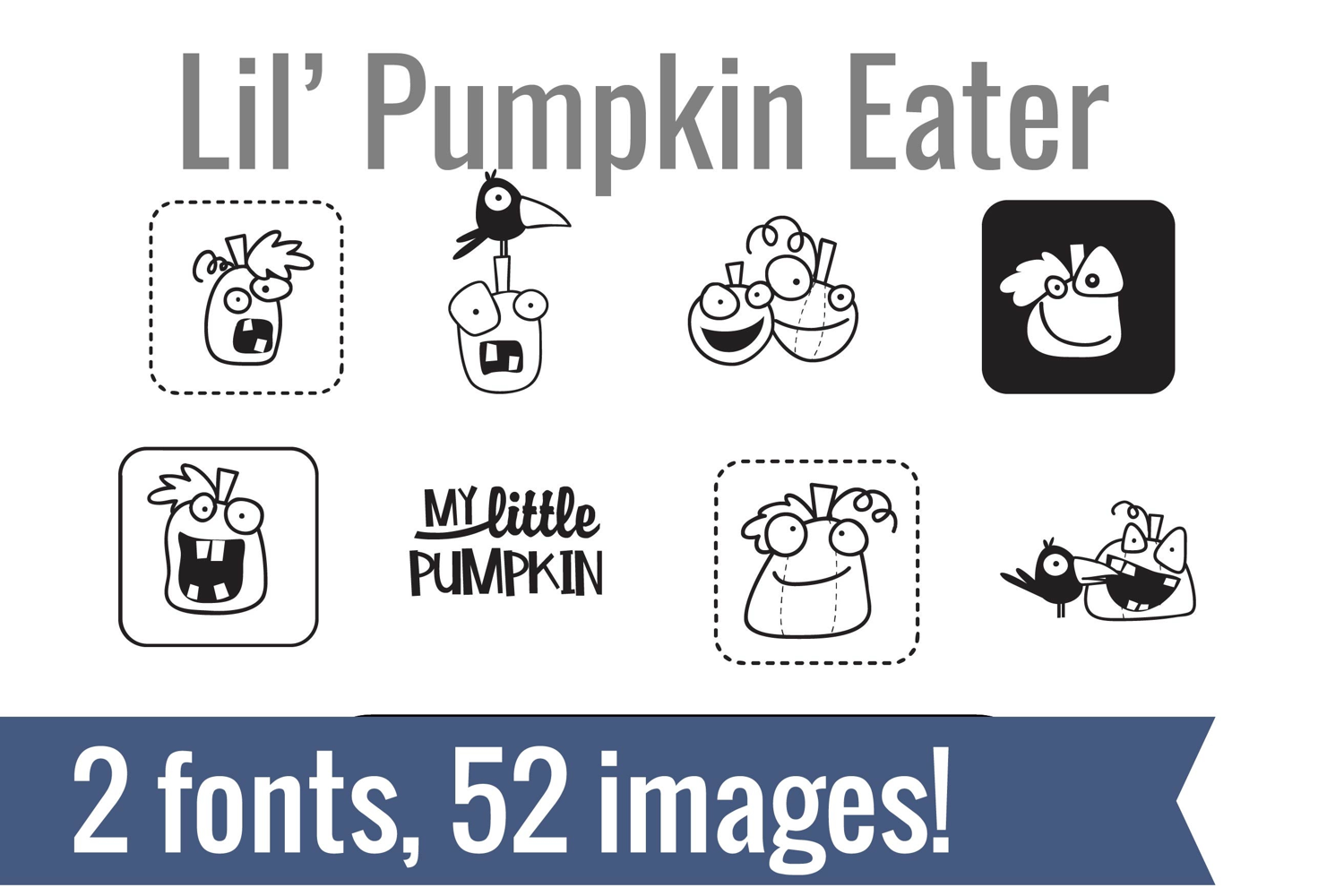
Lil' Pumpkin Eater Dingbats
Unlock endless creativity with two perfectly coordinated fonts! There are two dingbat fonts in this bundle, both featuring adorable jack-o-lanterns and pumpkins and one is perfect for journaling!
Tired of spending hours searching for the perfect icons and graphics? Our dingbat fonts put dozens of cohesive, scalable designs at your fingertips. Simply install the font and type a letter to produce a pre-made image. From charming seasonal icons for holiday cards to intricate frames for your invitations, these fonts let you create stunning designs for vinyl cutting, paper crafts, planners, and more.